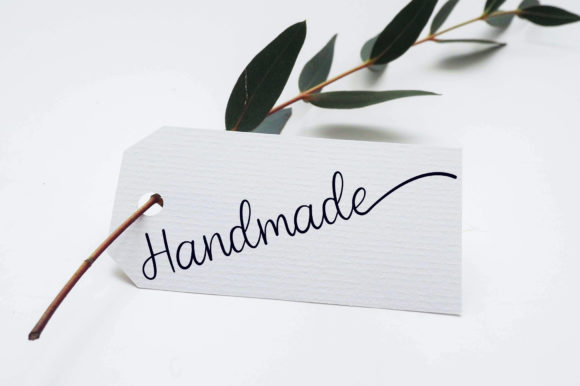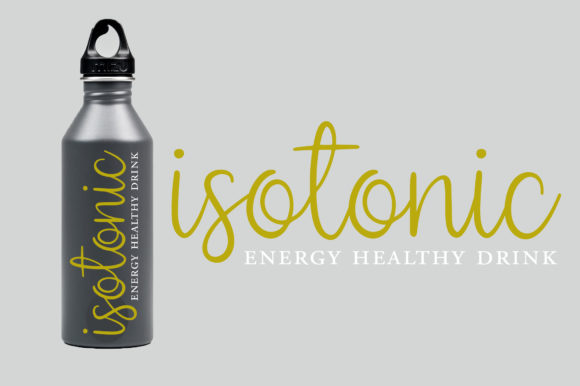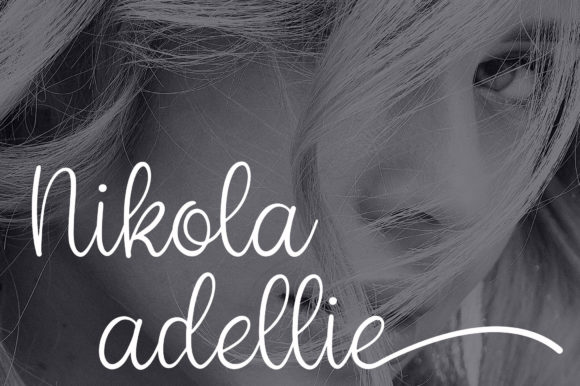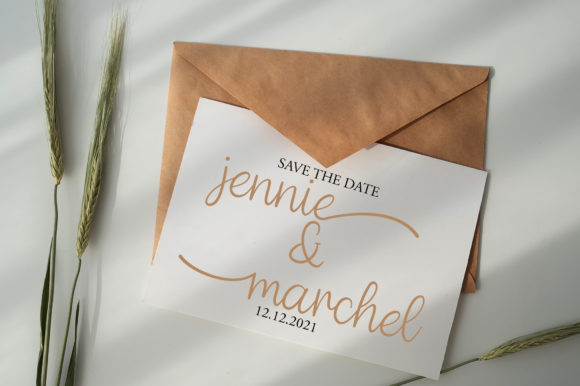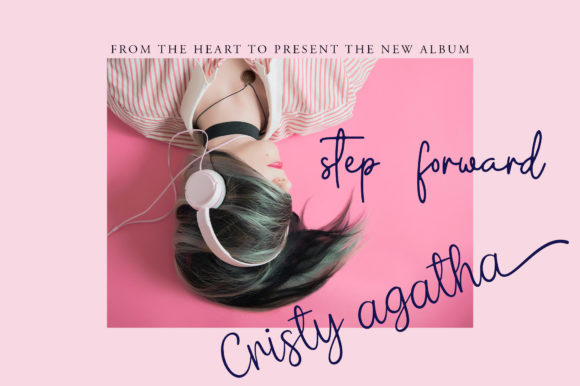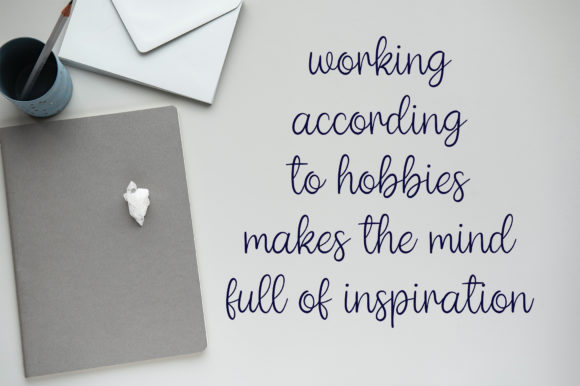
Introducing Amelinda Font: The Ultimate Handwritten Font for Confident Messaging
Are you tired of using the same old fonts for your designs? Look no further than Amelinda Font, a sophisticated and bold handwritten font that’s perfect for delivering messages with confidence, authenticity, and charm. In this article, we’ll dive into the features and benefits of Amelinda Font, and explore how it can elevate your design game.
What is Amelinda Font?
Amelinda Font is a beautifully crafted handwritten font that’s designed to make a statement. Its unique and elegant style makes it perfect for a wide range of design applications, from branding and advertising to packaging and digital media. Whether you’re a designer, crafter, or DIY enthusiast, Amelinda Font is a versatile and reliable choice for any project.
Key Features of Amelinda Font
• Sophisticated and Bold Design: Amelinda Font boasts a bold and sophisticated design that’s sure to grab attention. Its elegant lines and curves make it perfect for delivering messages with confidence and authenticity.
• PUA Encoded: Amelinda Font is PUA (Private Use Area) encoded, which means you can access all of the glyphs and swashes with ease. This feature makes it easy to customize your text and add a personal touch to your designs.
• Handwritten Style: Amelinda Font has a beautifully crafted handwritten style that’s perfect for creating unique and eye-catching designs. Its fluid lines and natural flow make it ideal for designs that require a personal touch.
Benefits of Using Amelinda Font
So, why choose Amelinda Font for your designs? Here are just a few benefits of using this amazing font:
• Stand Out from the Crowd: With Amelinda Font, you can create designs that stand out from the crowd. Its unique and elegant style makes it perfect for designers who want to make a statement.
• Easy to Use: Amelinda Font is easy to use and customize, even for designers who are new to font editing. Its PUA encoding makes it simple to access all of the glyphs and swashes.
• Versatile: Amelinda Font is a versatile font that can be used for a wide range of design applications. Whether you’re creating a logo, brochure, or social media graphic, Amelinda Font is a great choice.
Who Can Benefit from Amelinda Font?
Amelinda Font is perfect for a wide range of designers and crafters, including:
• Graphic Designers: Amelinda Font is a great choice for graphic designers who want to create unique and eye-catching designs for their clients.
• Crafters: Amelinda Font is perfect for crafters who want to add a personal touch to their DIY projects, such as handmade cards, gift tags, and scrapbooking pages.
• Digital Artists: Amelinda Font is a great choice for digital artists who want to create stunning digital art, such as illustrations, portraits, and landscapes.
Tips for Using Amelinda Font
Here are a few tips for using Amelinda Font in your designs:
• Experiment with Different Sizes: Amelinda Font looks great in a variety of sizes, from large headings to small body text. Experiment with different sizes to find the perfect fit for your design.
• Pair with Other Fonts: Amelinda Font pairs well with other fonts, such as sans-serif fonts and script fonts. Experiment with different font combinations to find the perfect look for your design.
• Use Swashes and Glyphs: Amelinda Font’s PUA encoding makes it easy to access all of the glyphs and swashes. Use these features to add a personal touch to your designs and make them stand out.
Amelinda Font is a sophisticated and bold handwritten font that’s perfect for designers and crafters who want to create unique and eye-catching designs. With its PUA encoding, elegant design, and versatile style, Amelinda Font is a great choice for a wide range of design applications. Whether you’re a seasoned designer or just starting out, Amelinda Font is a must-have font for any design project.